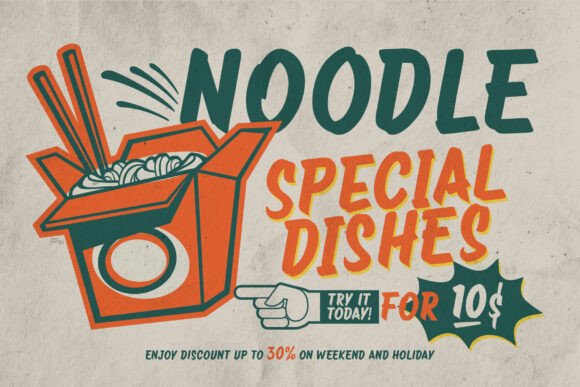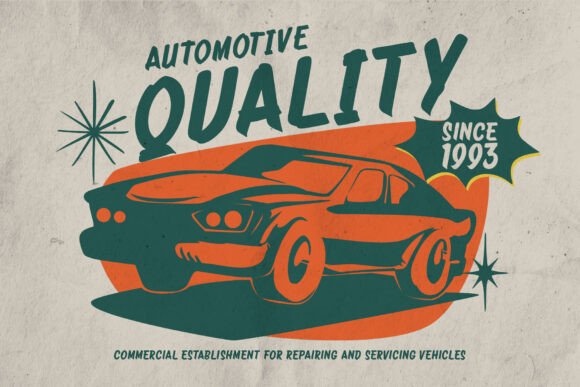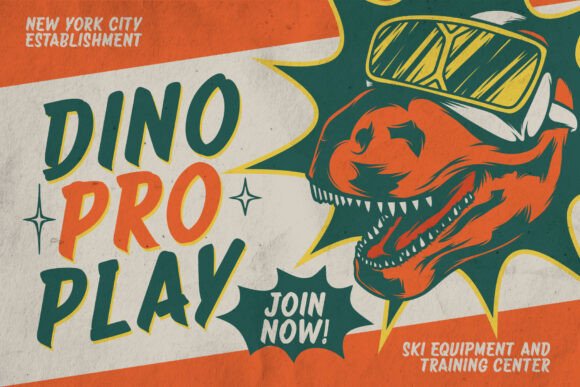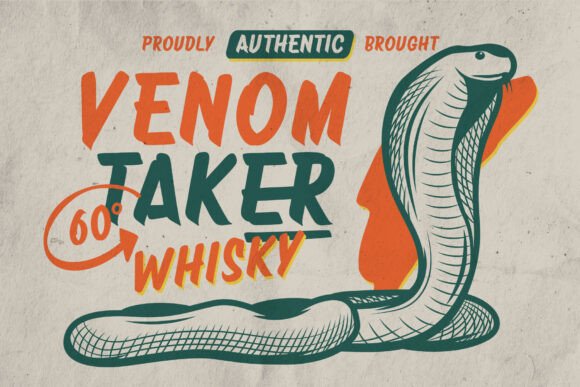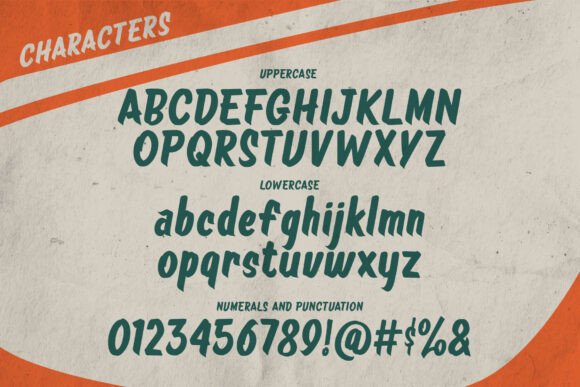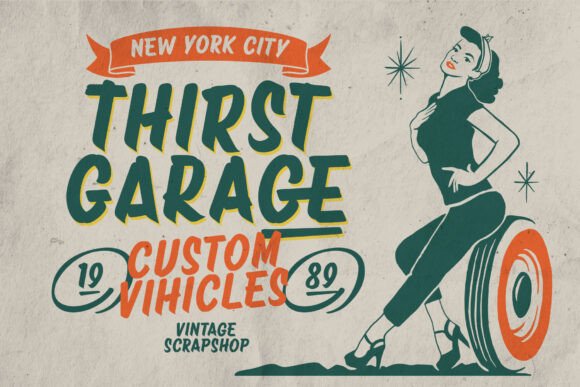
Introduction to Cowtail Brush Font
Cowtail Brush Sign Font is a beautifully crafted typeface inspired by vintage sign brush lettering.
Designed to evoke the charm and authenticity of classic hand-painted signage, this font delivers a true handwritten look with fluid strokes and organic curves, perfect for adding a nostalgic yet timeless feel to your designs Featuring 803 meticulously designed characters, including a rich set of ligatures and alternate characters, Cowtail Brush Sign offers a wide variety of letter combinations, giving your work a more personalized and handcrafted touch.